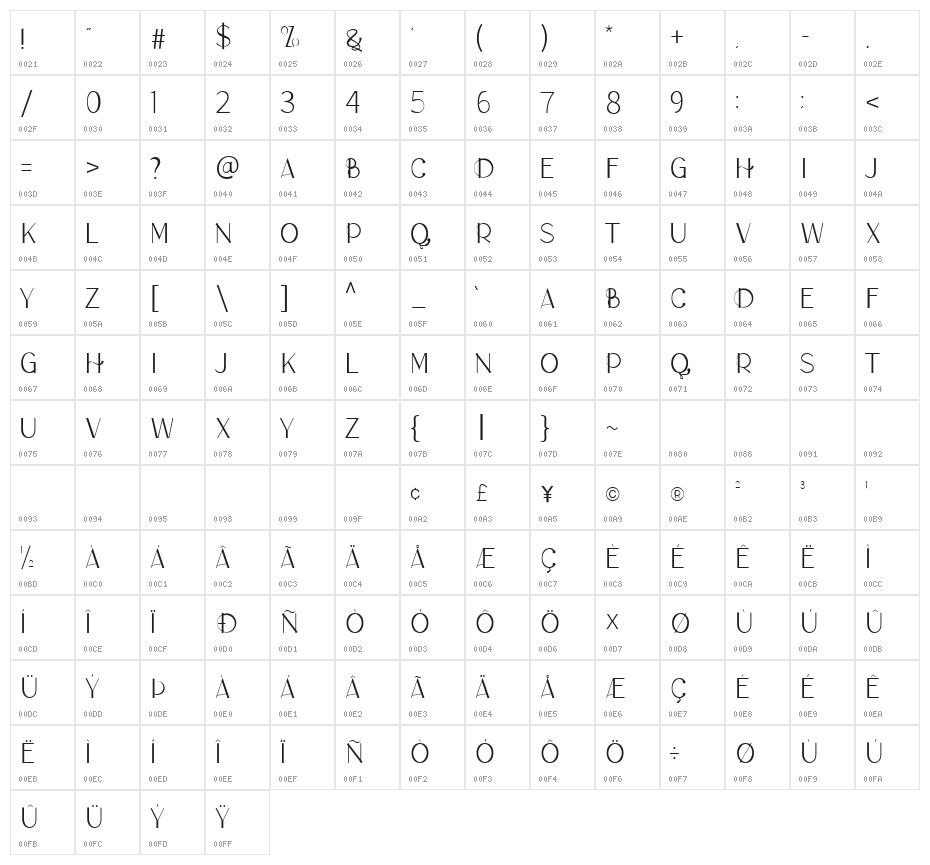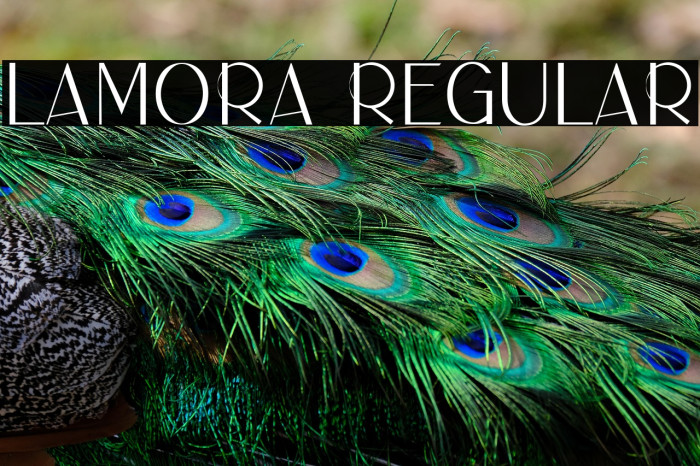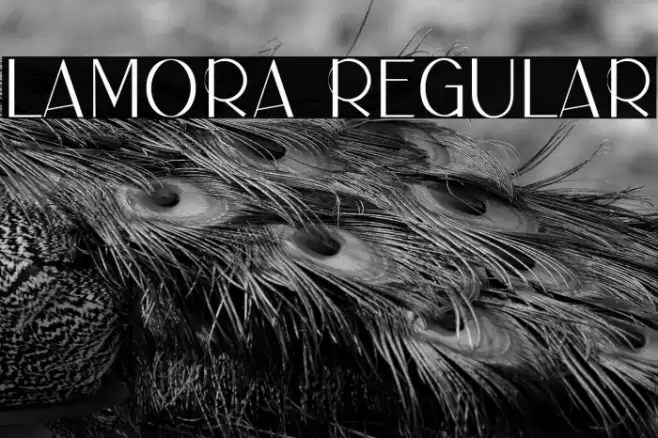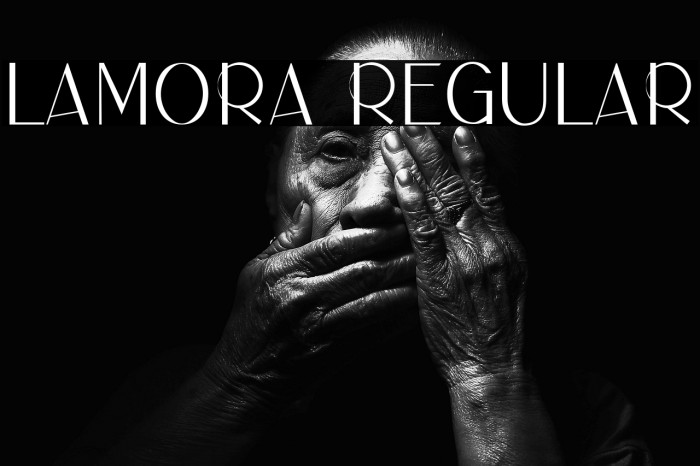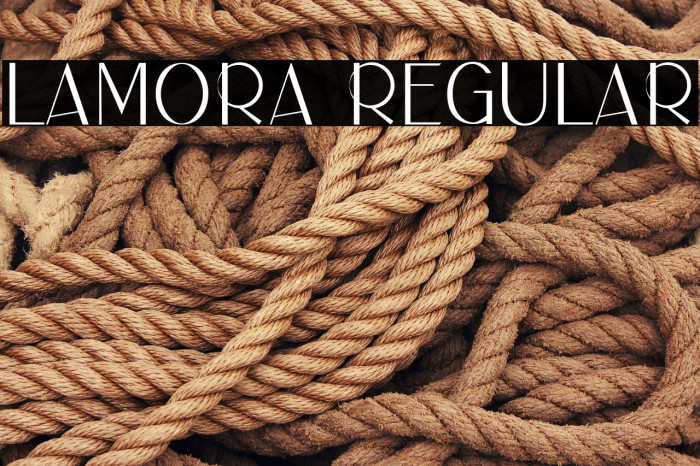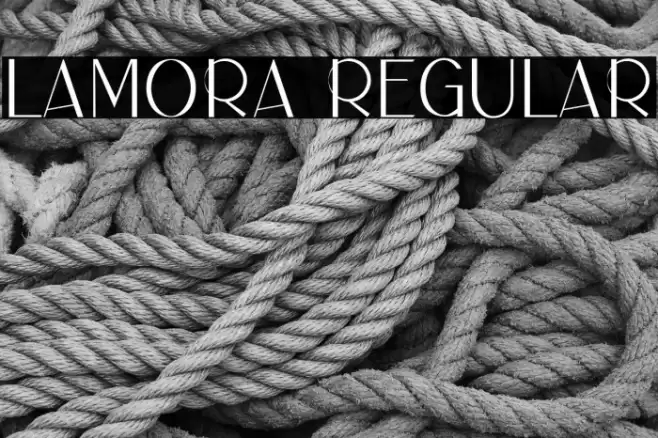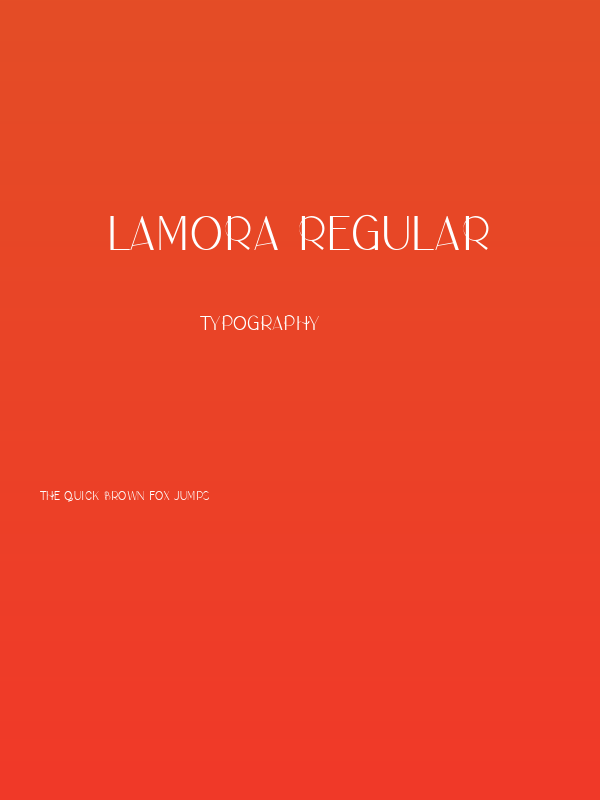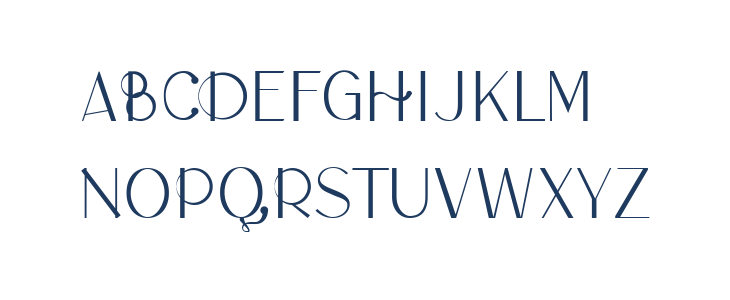
LAMORA Regular Font
LAMORA Regular Description
This font exhibits a modern and elegant style with a unique twist on traditional letterforms. The uppercase letters are characterized by clean lines and geometric shapes, while the lowercase letters maintain a consistent flow with subtle curves. The numerals are distinct and easy to read, making them suitable for various applications. Special characters are thoughtfully designed, adding to the font's versatility. The overall appearance is sophisticated, making it ideal for projects that require a touch of modernity and class.
Use CaseHeadlines, Logos, Editorial design
Proposed ProjectsIdeal for branding, editorial design, fashion magazines, and luxury product packaging.